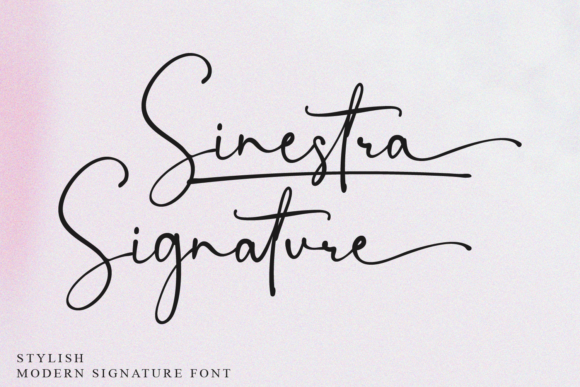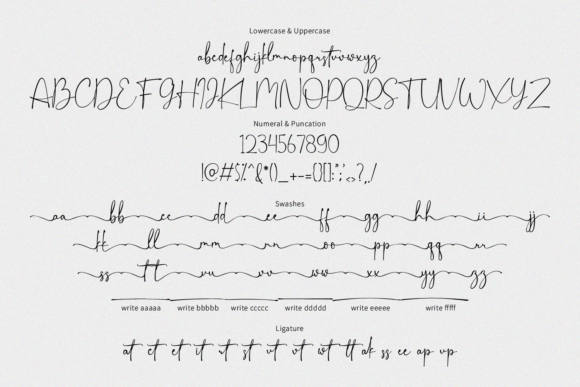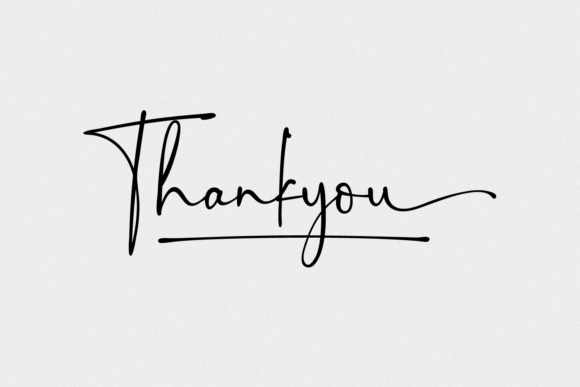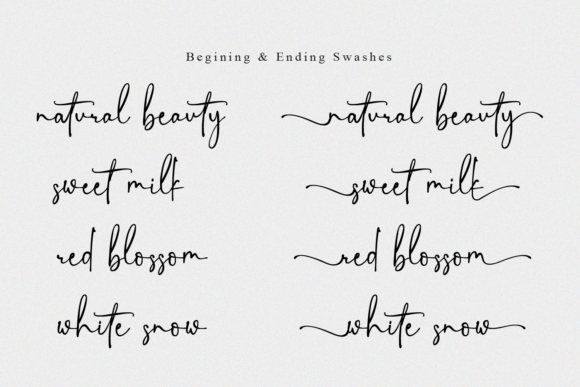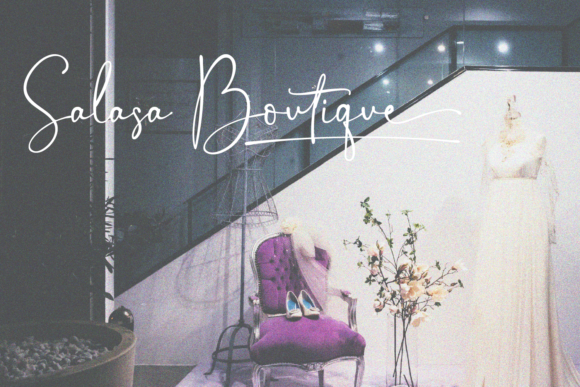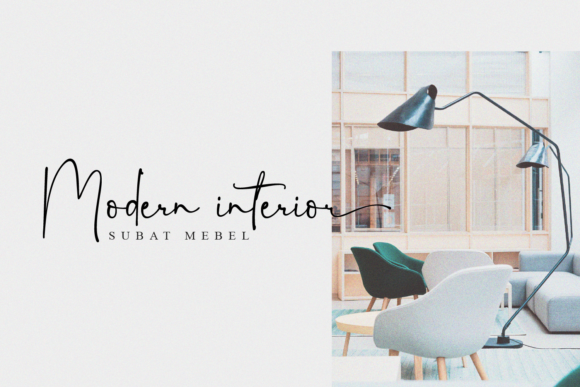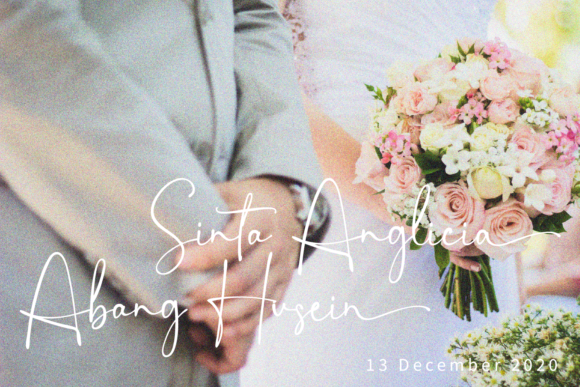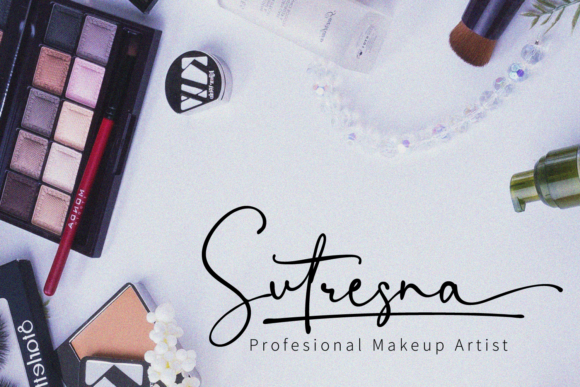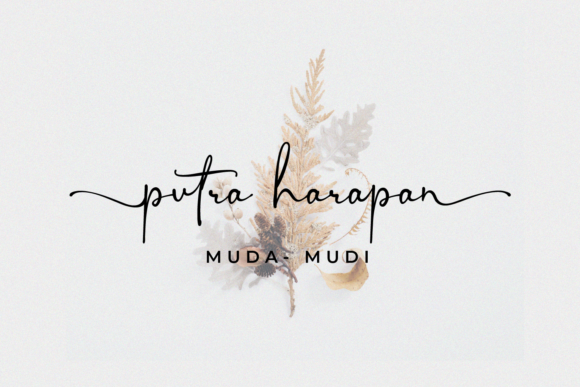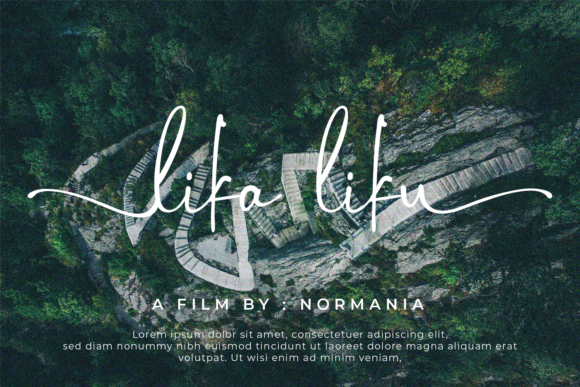
Sinestra Signature Font
About Sinestra Signature Font
Sinestra Signature is a luxurious and delicate script font that exudes elegance and sophistication. With its clean, thin, and smooth vibe, it is perfect for adding a touch of luxury and refinement to your designs.
The well-balanced and carefully crafted characters of Sinestra Signature give it a refined and polished look. Each letter flows seamlessly into the next, creating a harmonious and graceful appearance. The script style adds a sense of elegance and flair, making it suitable for a wide range of design applications.
The clean and thin lines of Sinestra Signature contribute to its modern and contemporary aesthetic. The minimalistic approach of the font ensures that it remains sleek and sophisticated, allowing your design elements to shine. Whether you’re creating logos, branding materials, invitations, or editorial designs, this font will add a touch of luxury and style.
The smooth and fluid strokes of Sinestra Signature give it a sense of grace and elegance. Each letter is meticulously designed to maintain a consistent and visually appealing look. The delicate curves and loops of the font create an intricate and captivating appearance, making it a perfect choice for projects that require a luxurious touch.
Despite its delicate nature, Sinestra Signature maintains excellent readability. Each character is legible and distinct, ensuring that your message is conveyed clearly. This makes it suitable for various design purposes, including headlines, titles, and other prominent text elements.
Sinestra Signature is a versatile font that can be used in both digital and print media. Whether you’re designing for websites, social media, or high-end printed materials, this font will adapt beautifully to different platforms and maintain its luxurious look.
In summary, Sinestra Signature is a luxurious and delicate script font with a clean, thin, and smooth vibe. It adds a touch of elegance and sophistication to your designs and is perfect for a wide range of projects. If you’re looking to elevate your designs with a luxurious and refined font, Sinestra Signature is an excellent choice.